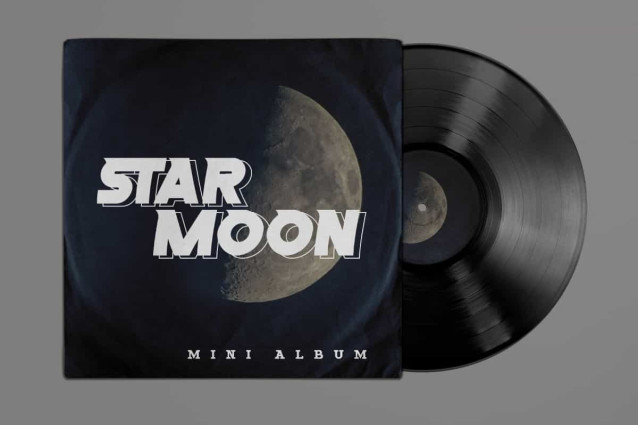
Stretch Pro Sans Serif Font
Stretch Pro Font is a basic Helvetica that is turned wide, this is a cool sans serif font with a futuristic and modern theme. With its neat and beautiful arrangement of letters, this typeface will look outstanding in both formal and non-formal designs.
Stretch Pro Font gives a gorgeous feel to a variety of branding projects, logos, wedding designs, social media posts, advertisements, and so much more. Let your imagination run free!